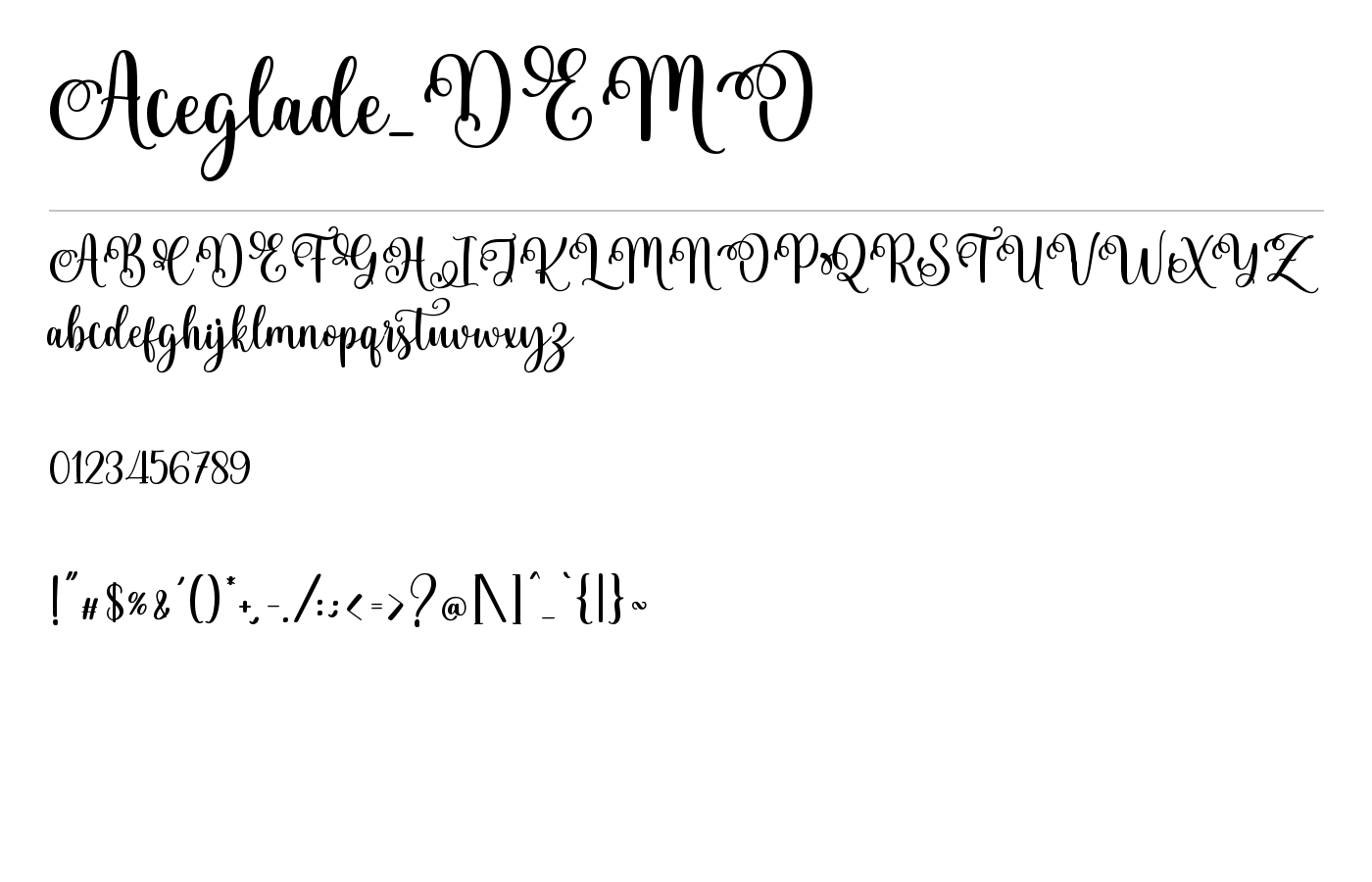
Aceglade_DEMO is a graceful and decorative script font characterized by elegant, flowing letterforms with elaborate swirls and curls, especially in the uppercase set. Its light weight, tall x-height, and delicate strokes create a refined, luxurious feel that works beautifully for invitations, branding, and elegant headlines. This font shines in designs seeking a sophisticated, ornamental style with a touch of vintage charm.
Aceglade_DEMO Font
About Aceglade_DEMO Font
| Font family | Aceglade_DEMO Font |